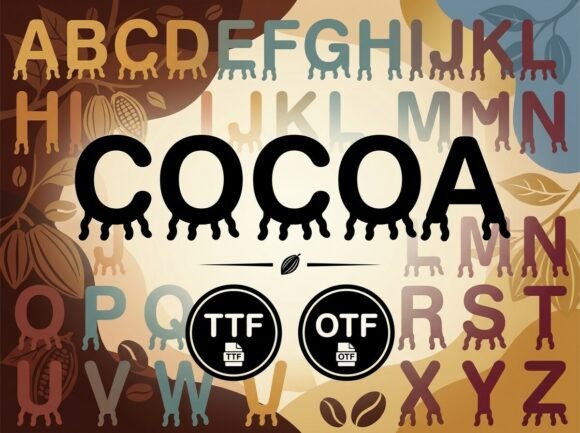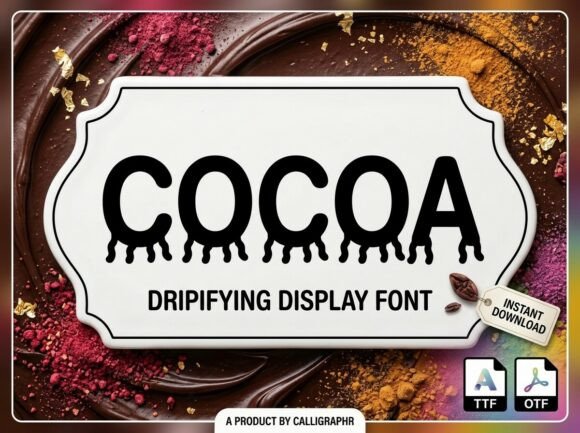
Introducing Cocoa Font: The Sweetest Way to Indulge Your Creative Cravings
Are you a designer or crafter looking for a font that captures the essence of sweetness and indulgence? Look no further than Cocoa Font, a luscious display typeface that’s sure to satisfy your creative cravings. With its bold, rounded letterforms and rhythmic, hand-drawn chocolate drips, Cocoa is the perfect choice for anyone looking to add a touch of whimsy and playfulness to their designs.
The Inspiration Behind Cocoa Font
Cocoa Font is inspired by the rich, velvety texture of chocolate and the joy of indulging in sweet treats. The font’s creator wanted to capture the “sweet-and-saturated” soul of chocolate and bring it to life in a way that would make designers and crafters swoon. The result is a font that’s both bold and playful, with a heavy structural weight that’s balanced by a lighthearted, carefree personality.
What Makes Cocoa Font So Special?
So, what sets Cocoa Font apart from other fonts on the market? Here are just a few features that make it a standout:
- Bold, rounded letterforms: Cocoa Font features bold, rounded letterforms that are perfect for creating eye-catching headlines and titles.
- Rhythmic, hand-drawn chocolate drips: The font’s hand-drawn chocolate drips add a playful, whimsical touch to every character.
- Heavy structural weight: Cocoa Font has a heavy structural weight that gives it a rich, luxurious feel.
- Playful personality: Despite its bold weight, Cocoa Font has a lighthearted, playful personality that’s perfect for brands that want to convey a sense of fun and indulgence.
Perfect for Artisanal Chocolate Branding and More
Cocoa Font is the premier choice for independent artisanal chocolate branding, bakery logos, dessert shop signage, and high-impact social media headers. Here are just a few ways you can use Cocoa Font to elevate your designs:
- Chocolate branding: Use Cocoa Font to create eye-catching labels and packaging for your artisanal chocolate business.
- Bakery logos: Create a sweet and inviting logo for your bakery or dessert shop with Cocoa Font.
- Dessert shop signage: Use Cocoa Font to create eye-catching signs and menus for your dessert shop or cafe.
- Social media headers: Add a touch of whimsy and playfulness to your social media headers with Cocoa Font.
Tips for Using Cocoa Font in Your Designs
Here are a few tips for using Cocoa Font in your designs:
- Use it boldly: Cocoa Font is designed to make a statement, so don’t be afraid to use it boldly and prominently in your designs.
- Pair it with contrasting fonts: Pair Cocoa Font with contrasting fonts to create visual interest and add depth to your designs.
- Experiment with colors: Cocoa Font looks great in a range of colors, from rich browns and tans to bright and bold hues.
Cocoa Font is a unique and captivating display typeface that’s sure to indulge your creative cravings. With its bold, rounded letterforms and rhythmic, hand-drawn chocolate drips, Cocoa is the perfect choice for designers and crafters looking to add a touch of whimsy and playfulness to their designs. Whether you’re creating artisanal chocolate branding, bakery logos, dessert shop signage, or high-impact social media headers, Cocoa Font is the premier choice for anyone looking to make a statement.